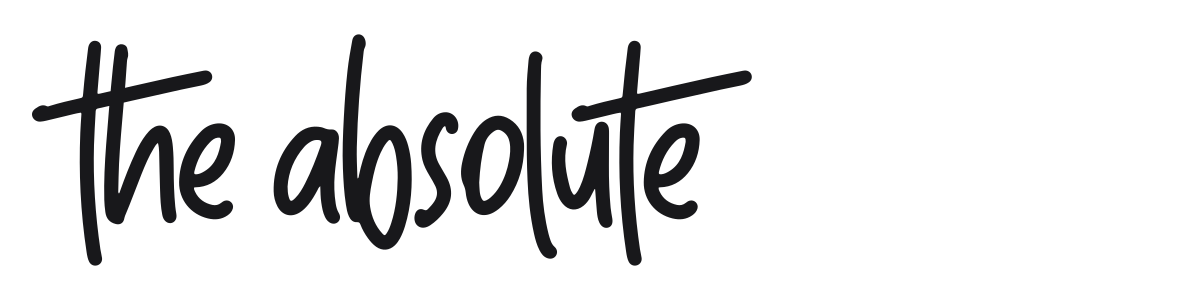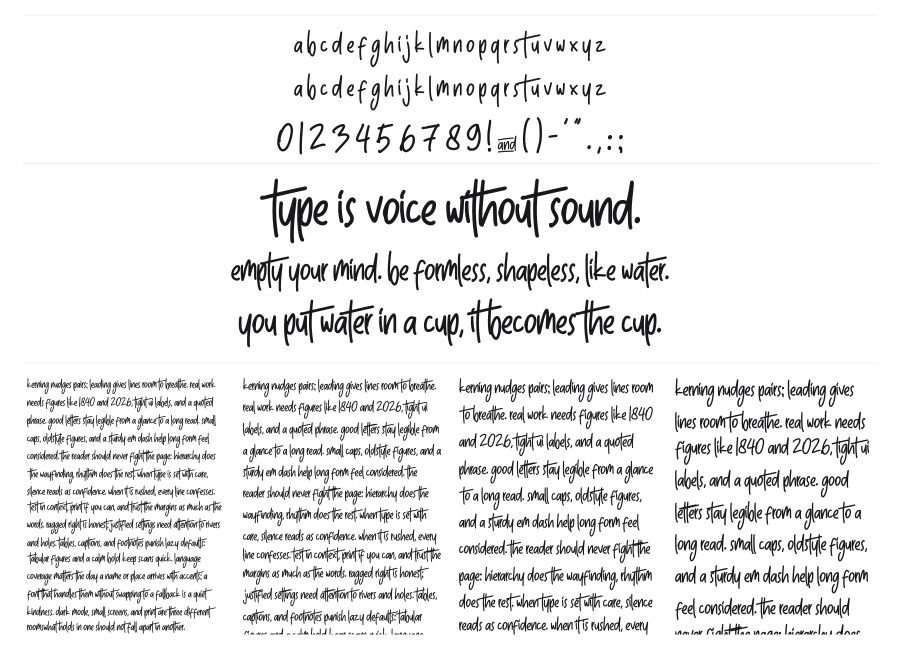
The Absolute
The Absolute is a casual handwriting script from Nirmana Visual with a loose, natural flow that feels like pen on paper. The slightly tilted posture and organic stroke variation give it genuine spontaneity without looking sloppy. It reads warmly at display sizes and suits any brand that wants to feel approachable and human.